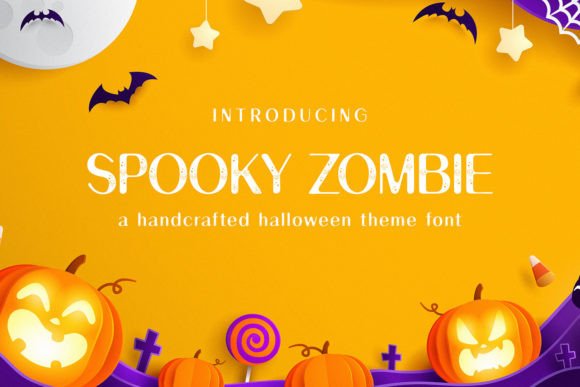
Prepare to delve into a realm of horror with Spooky, the font that oozes with spine-chilling charm. Its eerie glyphs, crafted to evoke a sense of mystery, will captivate your audience and send chills down their spines. Spooky is more than just a font; it's an experience that transports users into a captivating world of tales and legends.
Unleash the power of Spooky today and elevate your creative designs to new heights. Embark on a journey where nightmares meet imagination, and ignite the senses of your audience with every word you craft. Spooky is the key to unlocking a world of endless possibilities, waiting for you to bring it to life.
Unlock the Secrets of Spooky:
- Cast a spell with each word you write, as Spooky's enchanting glyphs dance across the page, capturing hearts and igniting souls.
- Conjure a world of darkness and desire, where words take on a life of their own, captivating your readers with their mysterious allure.
- Let Spooky's haunting beauty enhance your designs, turning ordinary text into captivating spells that awaken the imagination.
- Embark on an adventure where every letter tells a tale, leaving your audience spellbound and yearning for more.